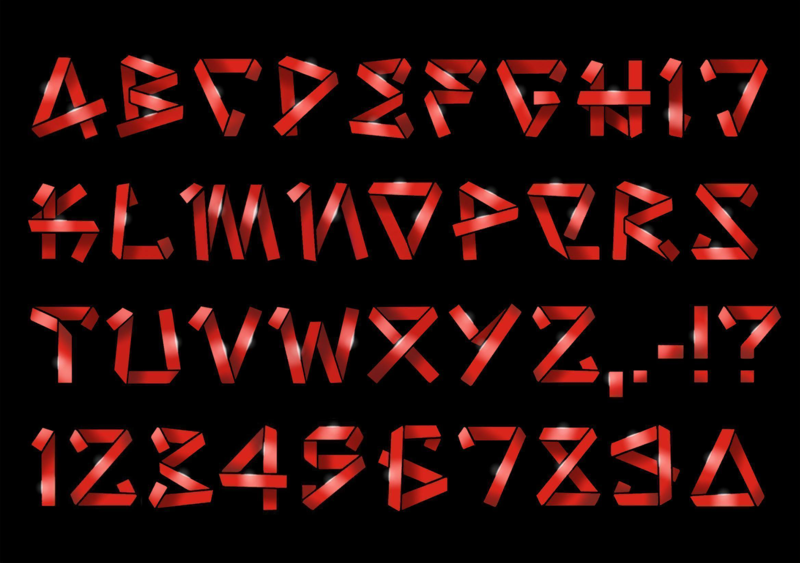
Font name: | Strip Joint |
Author: | Mike Wolf |
Note by Mike Wolf | |
This font was originally called "Scrawl", but I guess it wasn´t really a scrawl, so I changed it to "Strip Joint", which seems more appropriate. Sorry for any confusion. |